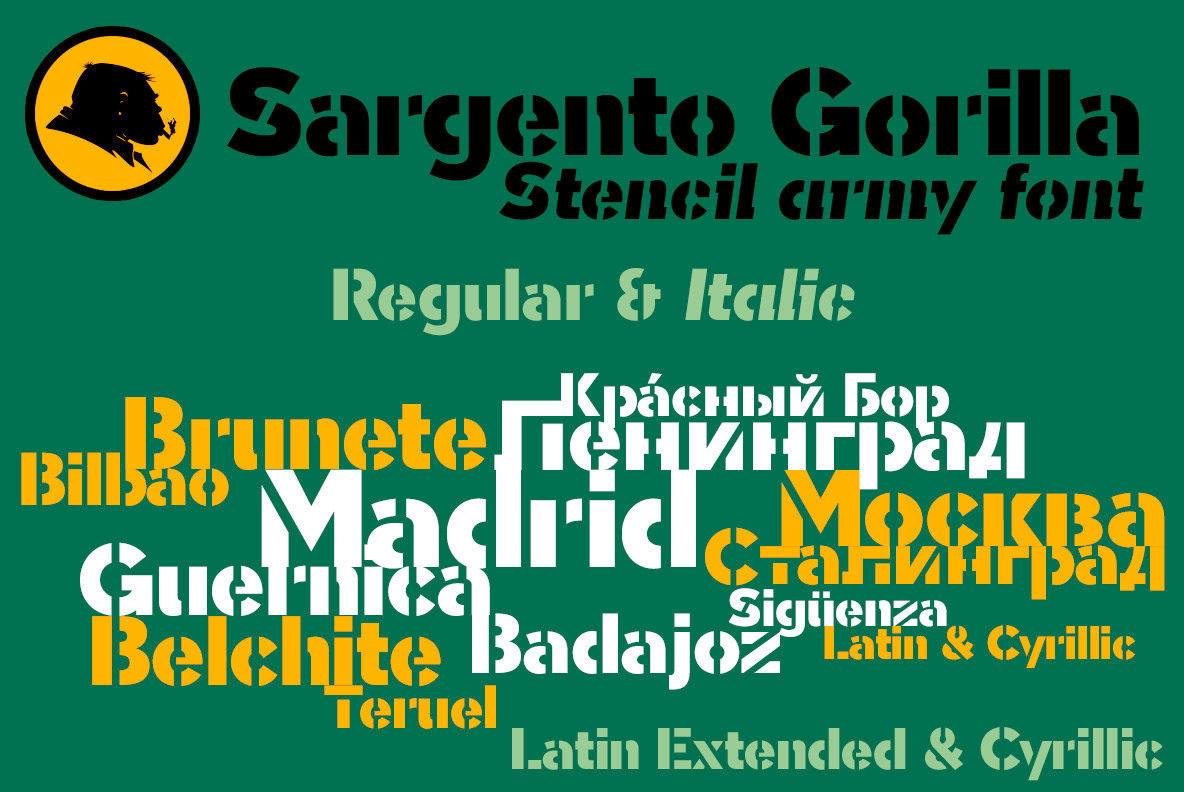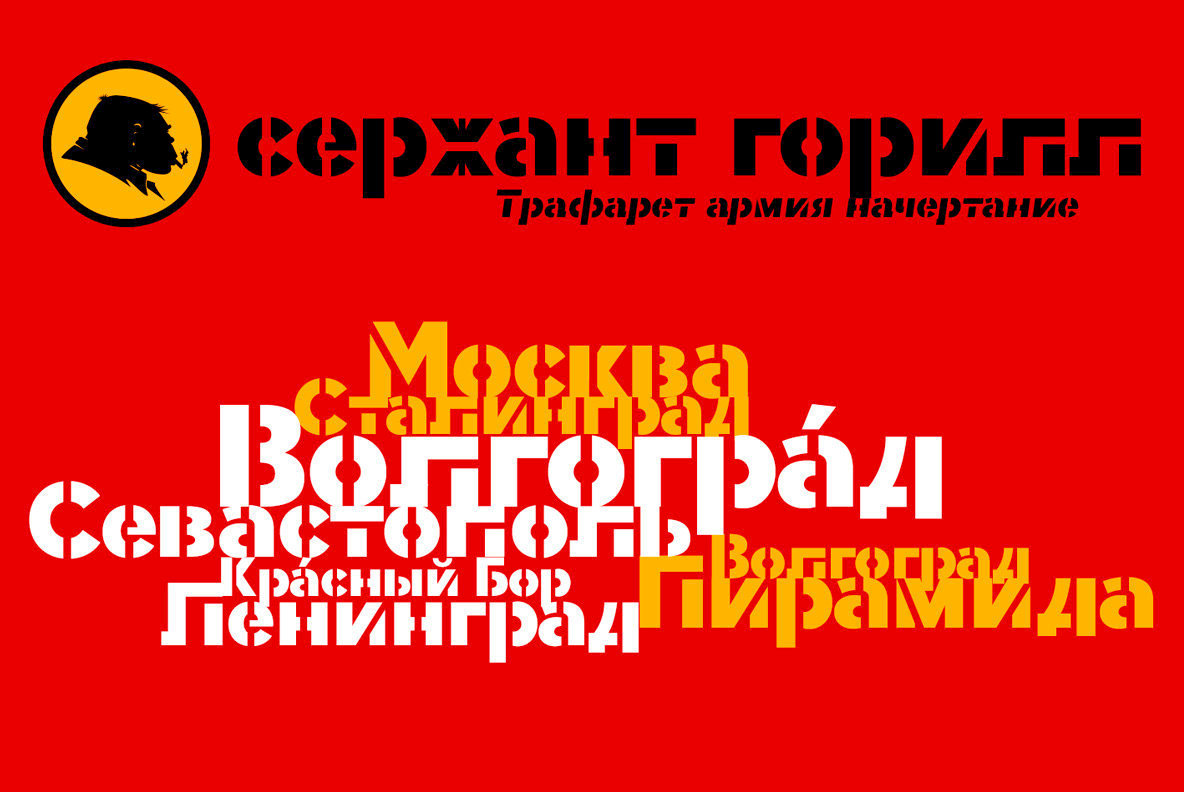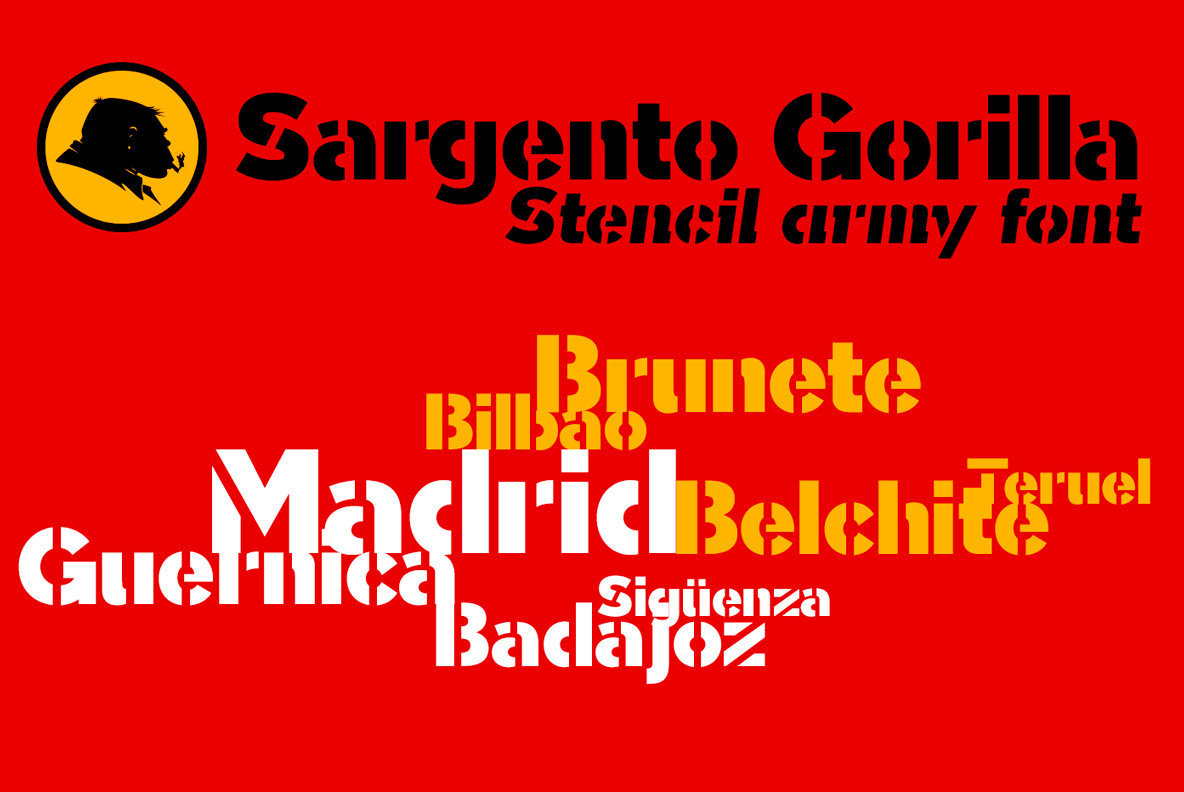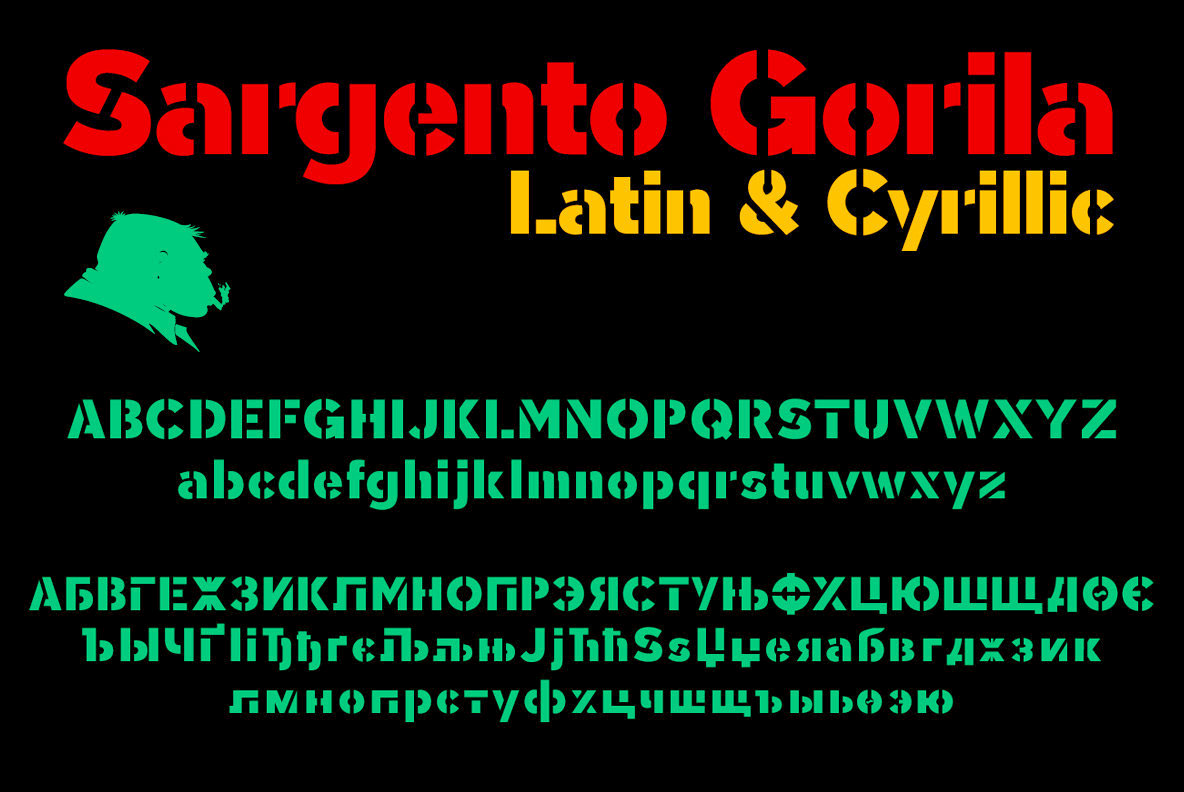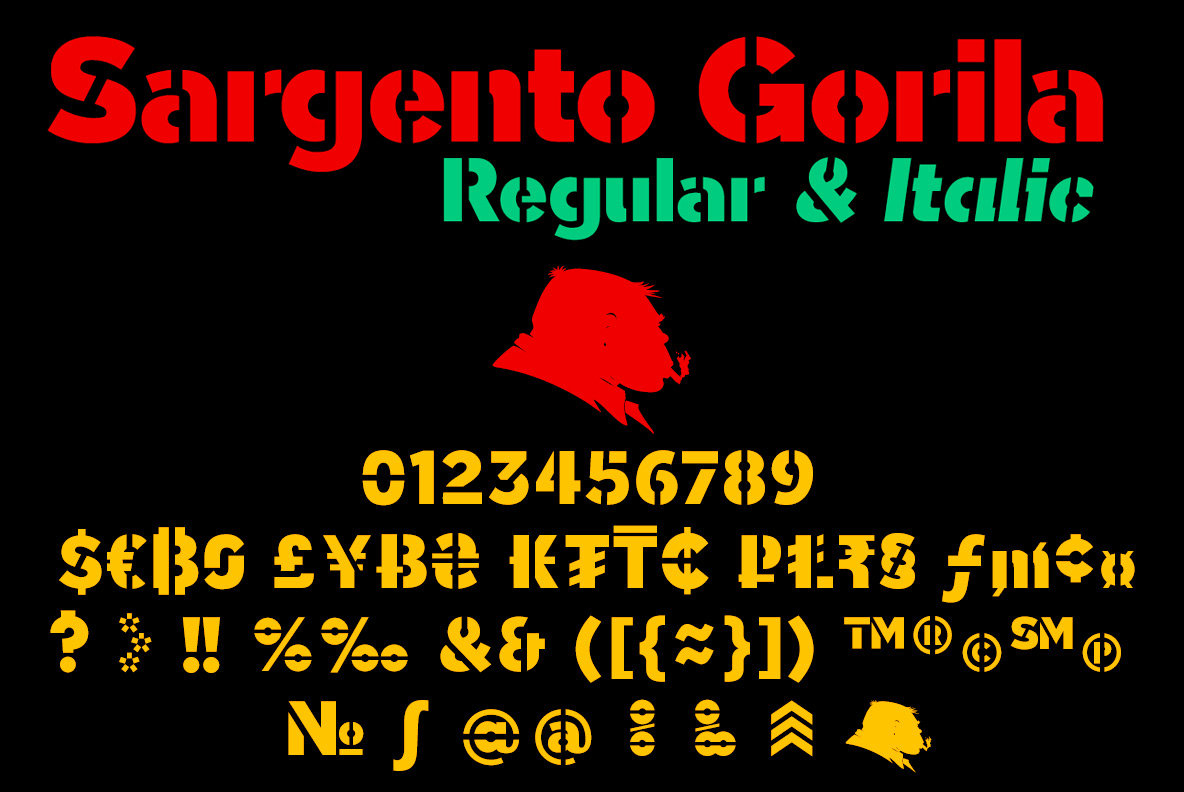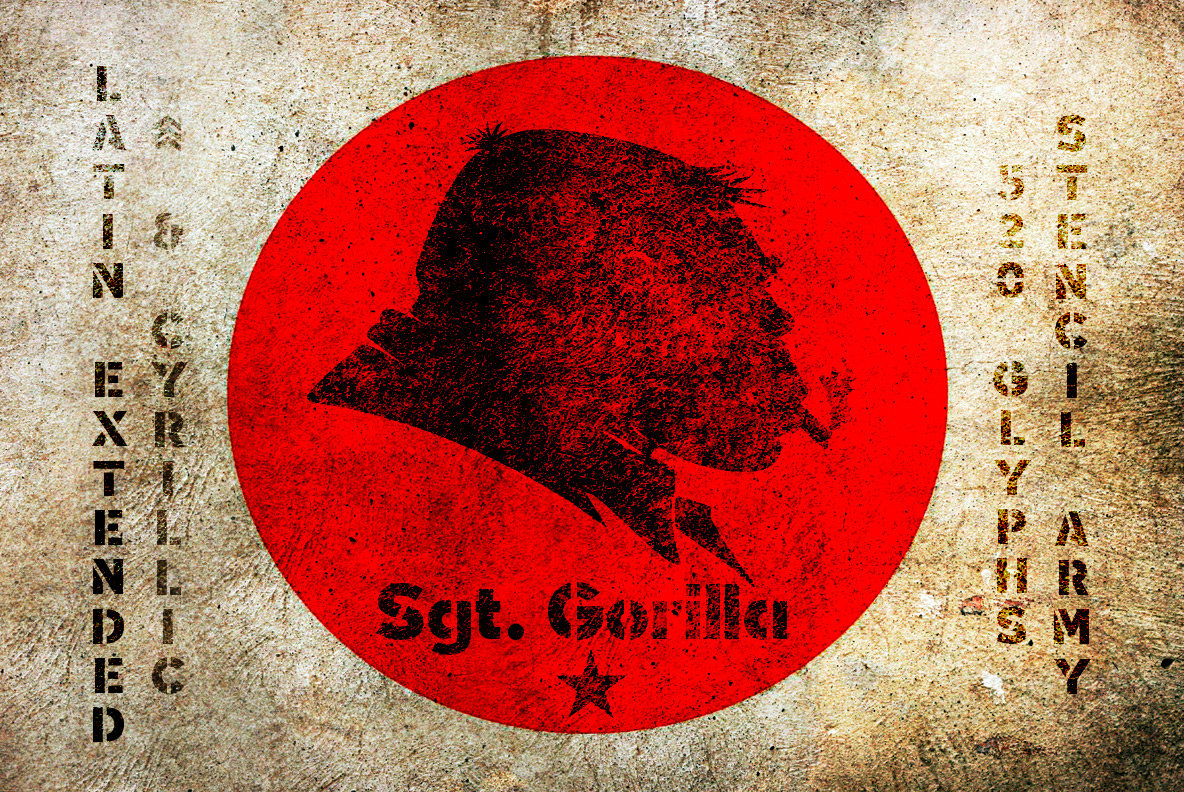
Sargento Gorila Font
Sargento Gorila
Sargento Gorila Italic
Sargento Gorilla is a thick, stencil, military style sans-serif design that contains numerous features such as: Cyrillic support, several monetary symbols including Bitcoin, alternate glyph options, along with various ligature options.
- Stacked Fractions, Historical Forms, Kerning, Localized Forms, Capital Spacing, Standard Ligatures, Alternates, Additional languages, Fractions.